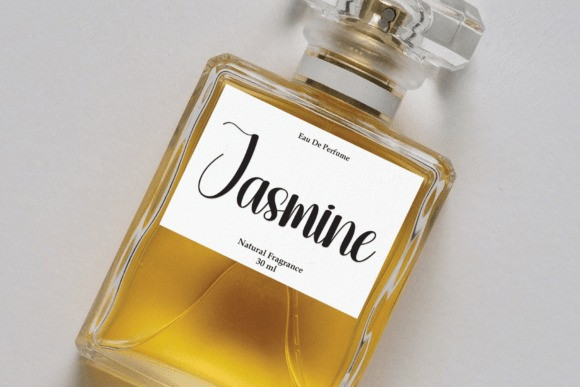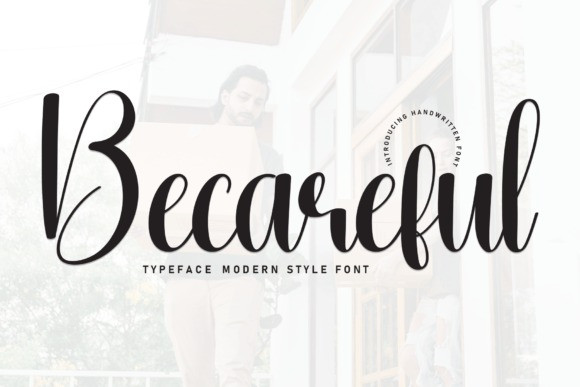
Becareful Script Font
Becareful Script Font is a contemporary handwritten font that effortlessly blends style with readability. Its flowing strokes and unique character design add a touch of personality to any project, while maintaining a clear and careful legibility. Perfect for adding a personal and modern touch to your creative endeavors.